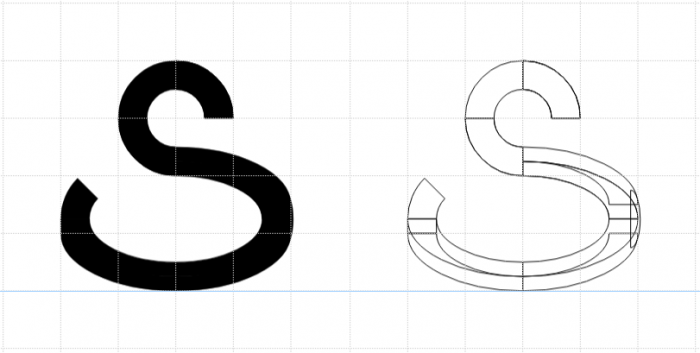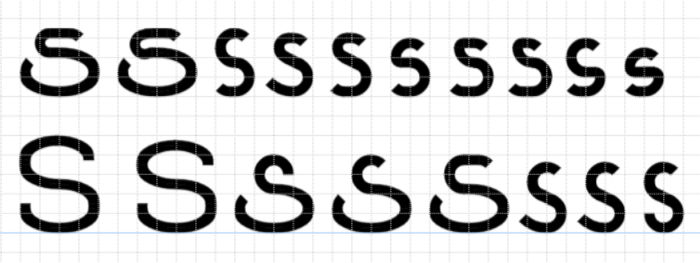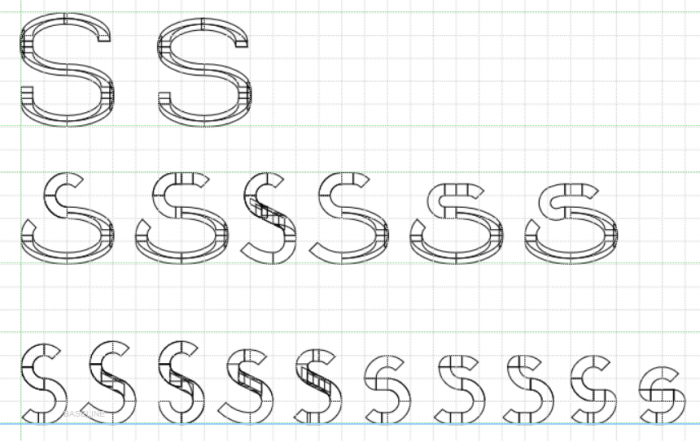
Very cool art-deco sans serif. And very original asterisk sign)
Make it support cyrillic.
An option...
Well... Try to forget it, really is an option that I don't like.
You can try the handwritten S - it will still be geometric and fit the letter e with a slash (the slope of the line is also better to take from it, not mine)
Here, another additional set of extra options, but it is what Dmitriy (Sychoff) also brings to the attention, the geometric forms are important in your design, and imo a very strong solution as well that Sychoff is suggesting.
My templates are far from that level of pure geometric, but perhaps you can chop an re-use some segments. I did solutions in a variety of different cap heights.
The problem is simply that I made the font very small (see screenshot)...
Therefore Dmitriy Sychiov's solution with the handwritten "s" would be the most feasible, I guess...
Actually looks pretty good. Still, I think a regular "s" would fit better. Also because the "z" is pretty slim...